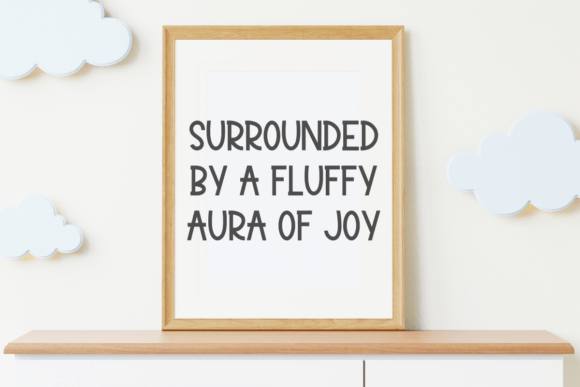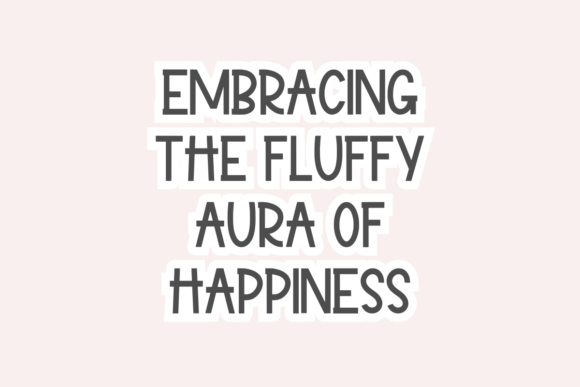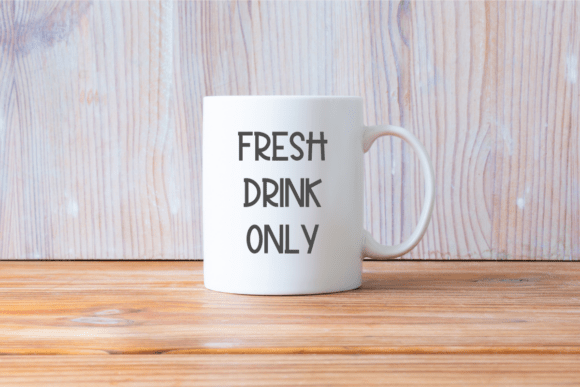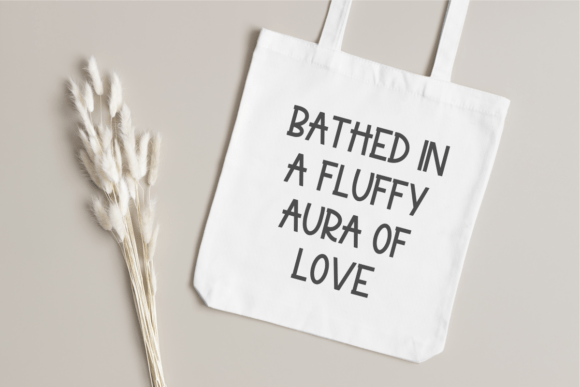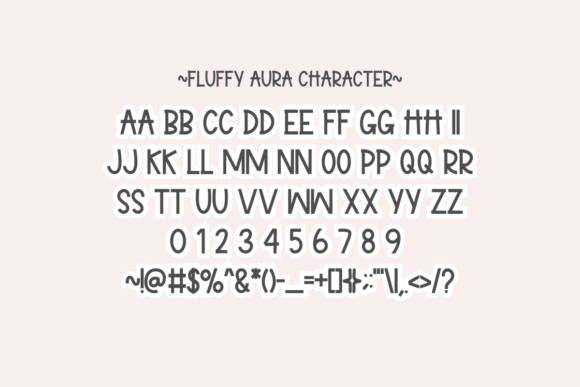
Discover the Delightful World of Fluffy Aura Font
Have you ever been in the middle of a creative project, and suddenly, you’re stuck on finding the perfect font? I recall a recent experience while working on a client’s greeting card design. The project required a playful, yet elegant touch, but my usual go-to fonts just weren’t cutting it. That’s when I stumbled upon the charming Fluffy Aura Font. In this article, we’ll dive into the world of Fluffy Aura, exploring its features, uses, and what makes it an excellent addition to your design toolkit.
A Personal Review of Fluffy Aura Font
As a designer, I’m always on the lookout for fonts that can bring a unique touch to my projects. Here’s my honest review of Fluffy Aura Font:
- ✨ Cute and Friendly Style: Fluffy Aura’s playful, handwritten aesthetic makes it perfect for a wide range of creative projects, from crafts to digital designs.
- ✅ Versatility: This font is ideal for various applications, including planners, KDP, stickers, greeting cards, and more.
- ✨ Easy to Read: Despite its playful nature, Fluffy Aura remains clear and easy to read, making it suitable for both digital and print designs.
While Fluffy Aura is an excellent font, there are a few minor considerations to keep in mind:
- ⚠️ Limited Formality: Due to its playful nature, Fluffy Aura might not be the best fit for formal or professional designs.
- 🤔 Glyph Variety: While the font has a good range of characters, it might not have the extensive glyph library that some designers require.
- Explore the font’s OpenType features, such as Stylistic Alternates and Glyphs, to add variety to your design.
The Story Behind Fluffy Aura Font
Fluffy Aura Font was designed with the intention of creating a friendly, approachable font that would bring joy to creative projects. The designer aimed to craft a font that would be perfect for a wide range of applications, from crafts to digital designs. With its cute and playful style, Fluffy Aura is sure to become a favorite among designers, crafters, and makers.
| Font Name | Fluffy Aura Font |
| Author | Letterayu |
Q: What is Fluffy Aura Font best used for?
A: Fluffy Aura Font is perfect for crafts, planners, KDP, stickers, greeting cards, and more. Its versatility makes it suitable for various creative projects.
Q: Is Fluffy Aura Font suitable for digital designs?
A: Absolutely! Fluffy Aura Font is designed to be clear and readable on digital platforms, making it perfect for social media graphics, blog posts, and more.